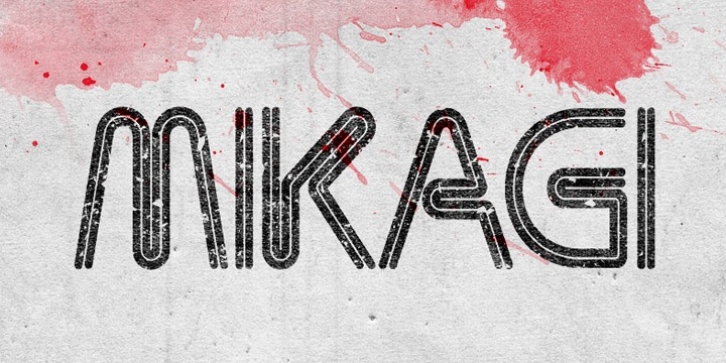
Mikagi downloadDesigner: Alex Haigh
Publisher: Thinkdust
Mikagi is a remix of the original 2008 Miyagi typeface.
This time it’s got texture and a lot more attitude.